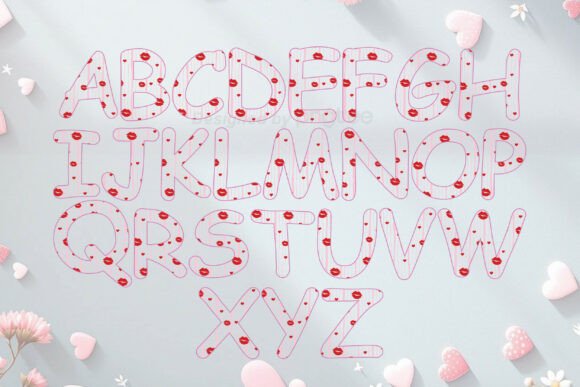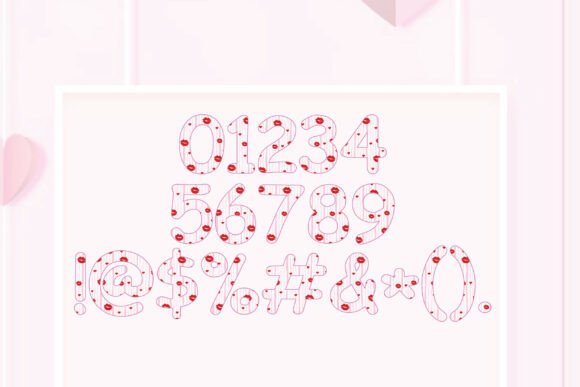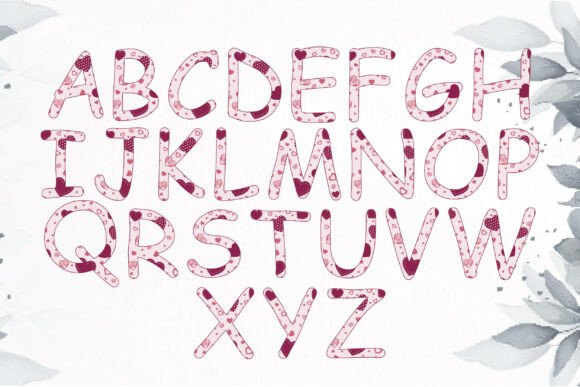
Introduction to Heart Beat Bundle Font
💖 Preppy Aesthetic Font Bundle – Love, Heart, Pattern & Pink Alphabets Bring trendy, cute, and stylish vibes to your designs with this Preppy Aesthetic Font Bundle.
This collection includes four fashionable fonts featuring love, heart details, playful patterns, and soft pink tones — perfect for aesthetic and girly creative projects Ideal for planners, stickers, t-shirts, mugs, scrapbooking, party decorations, classroom materials, social media graphics, and DIY crafts.
Why Choose Heart Beat Bundle Font?
Heart Beat Bundle Font offers exceptional quality and versatility, making it a valuable addition to your design toolkit. Whether you’re creating for personal projects or commercial use, Heart Beat Bundle Font delivers professional results.